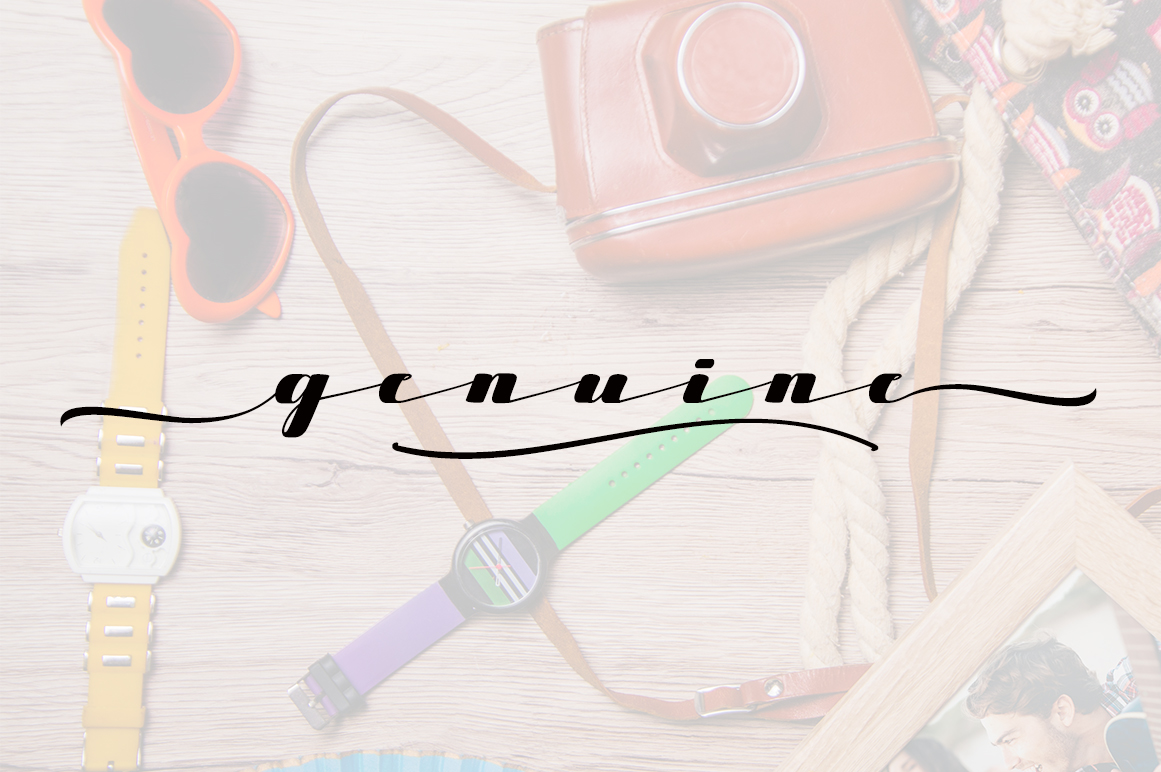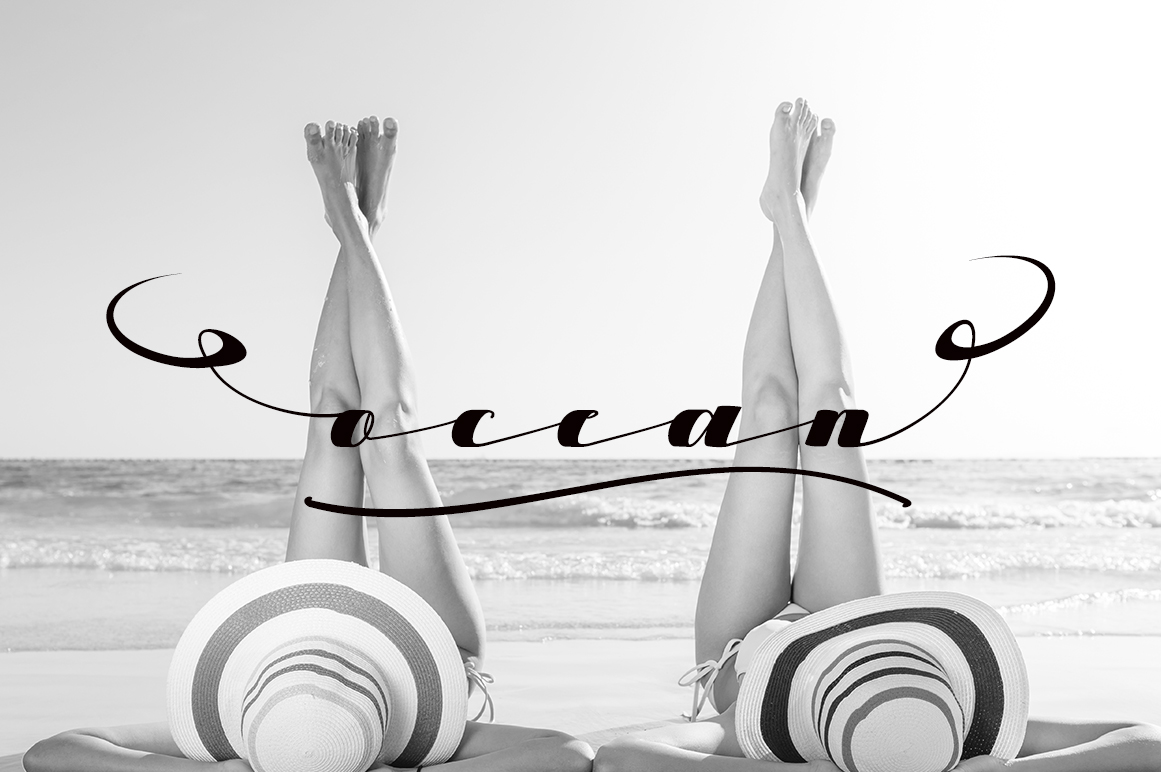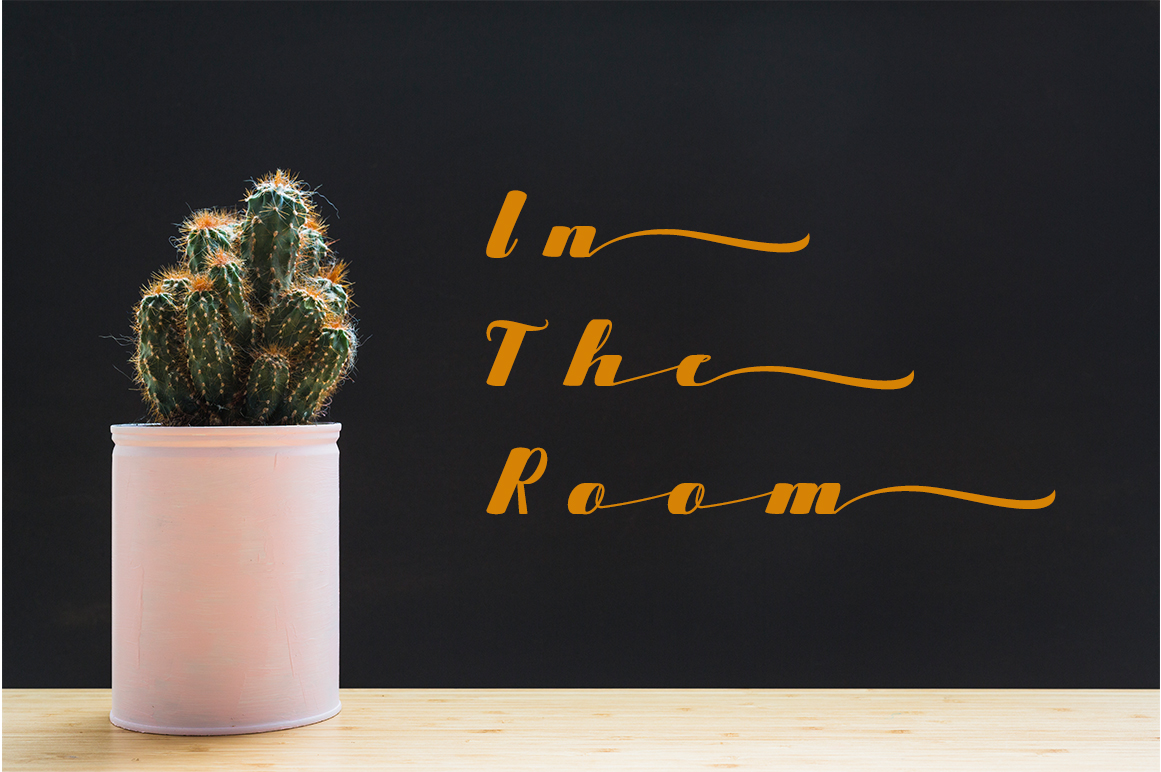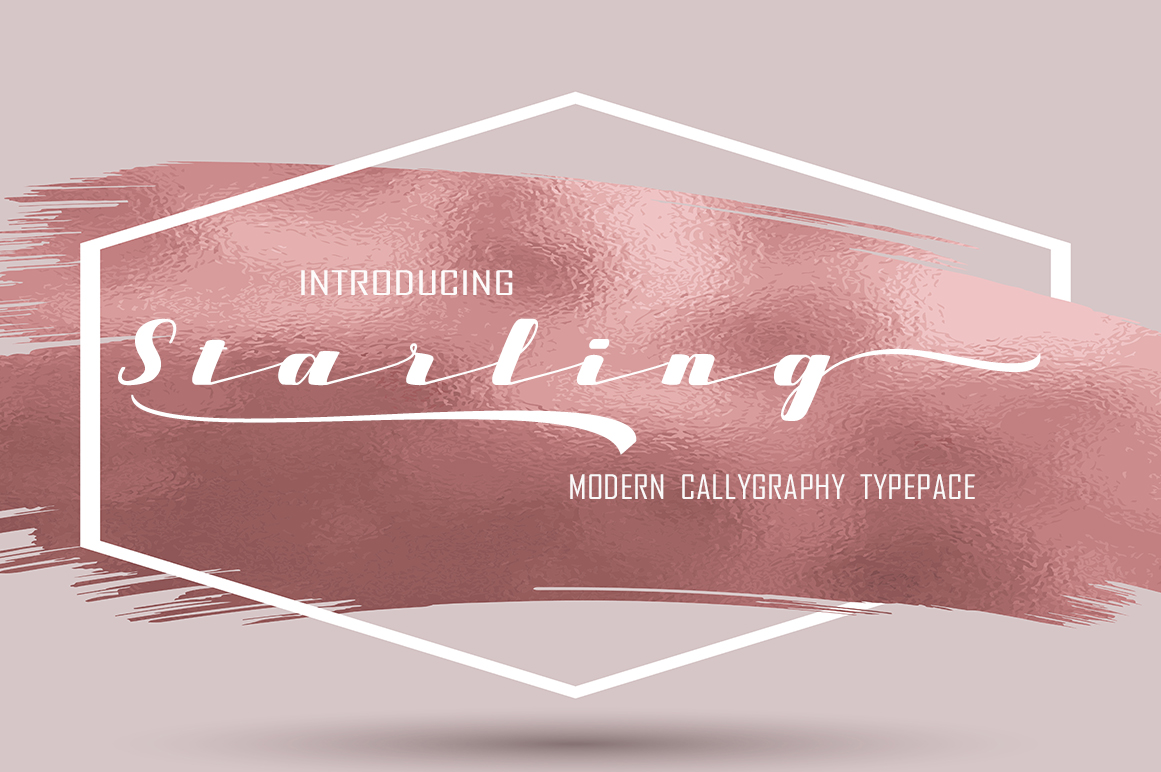
Starling Script Font
Starling Modern Calligraphy. This font was designed by handwriting, and it has a modern and unique forms of calligraphy, the writing style is very natural.